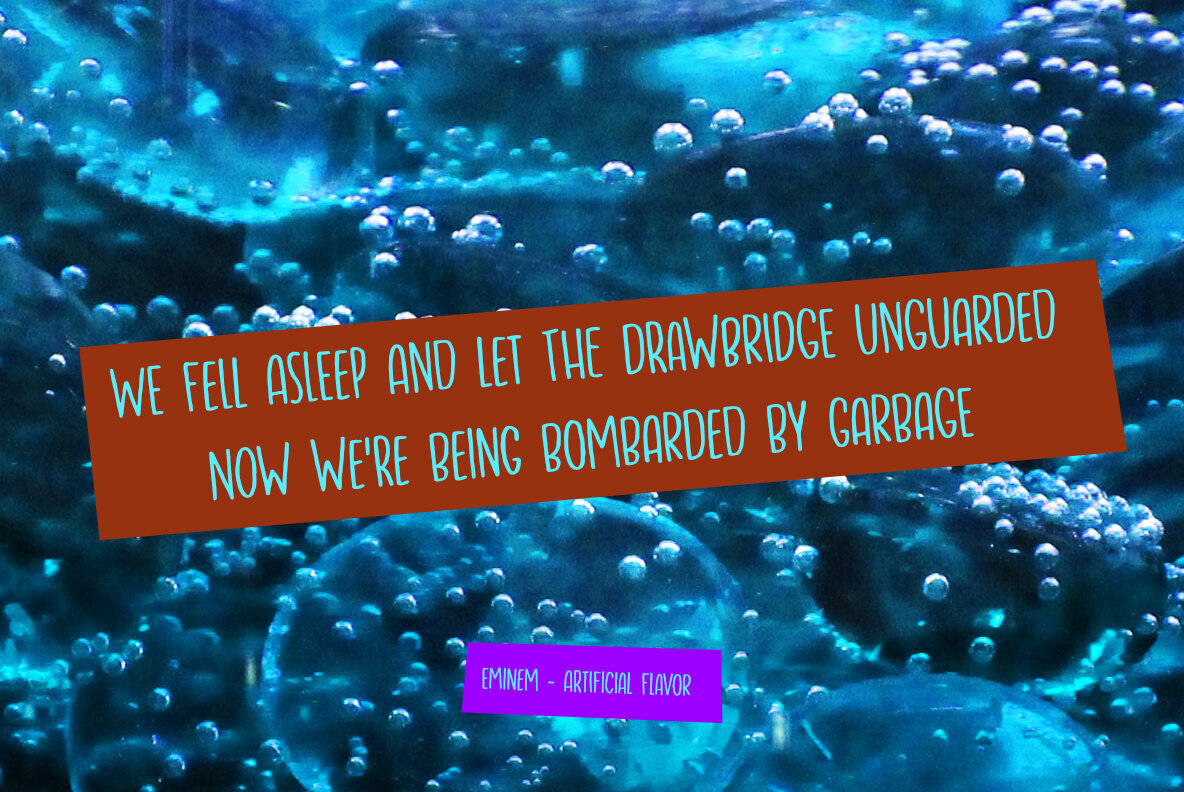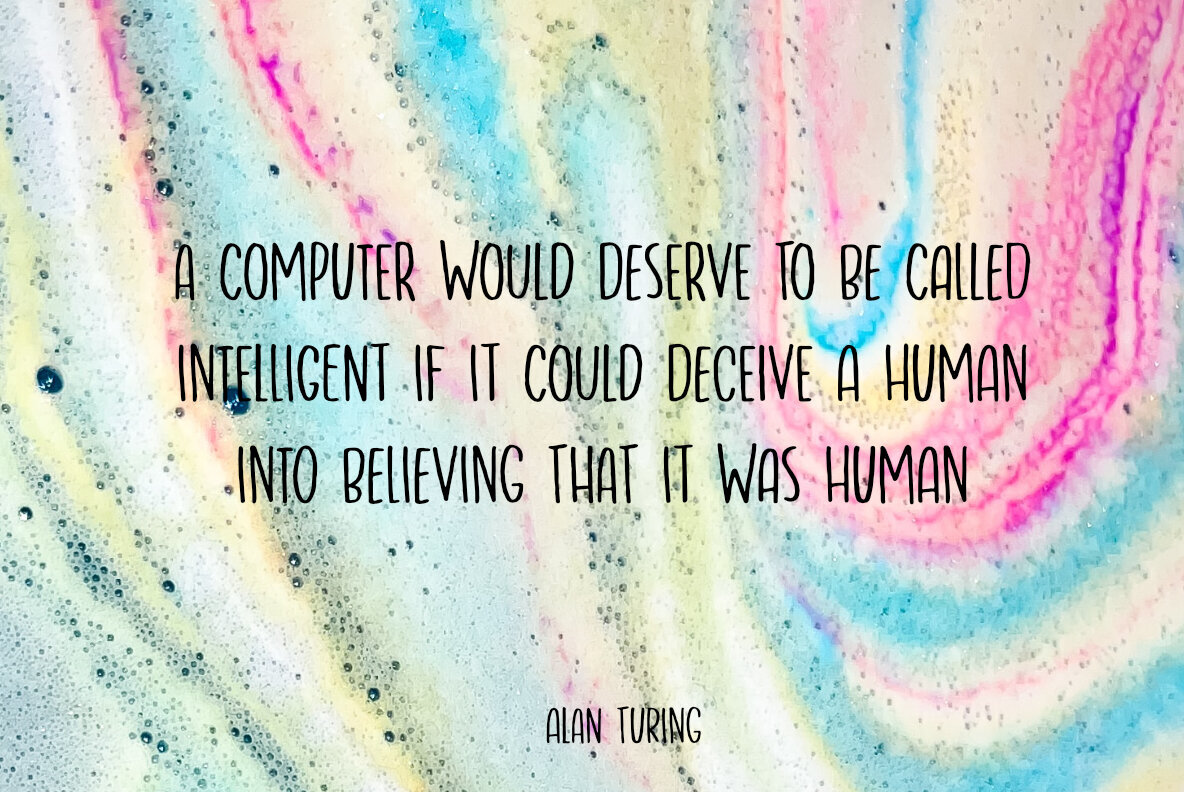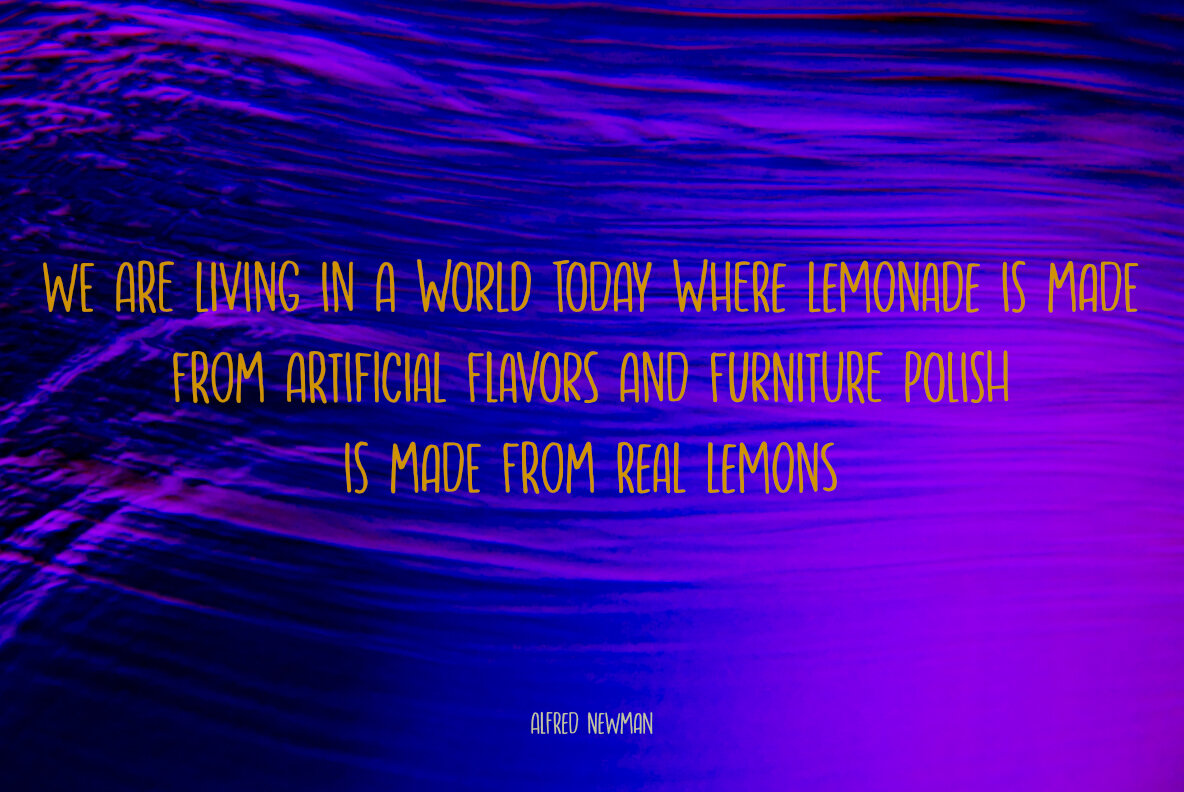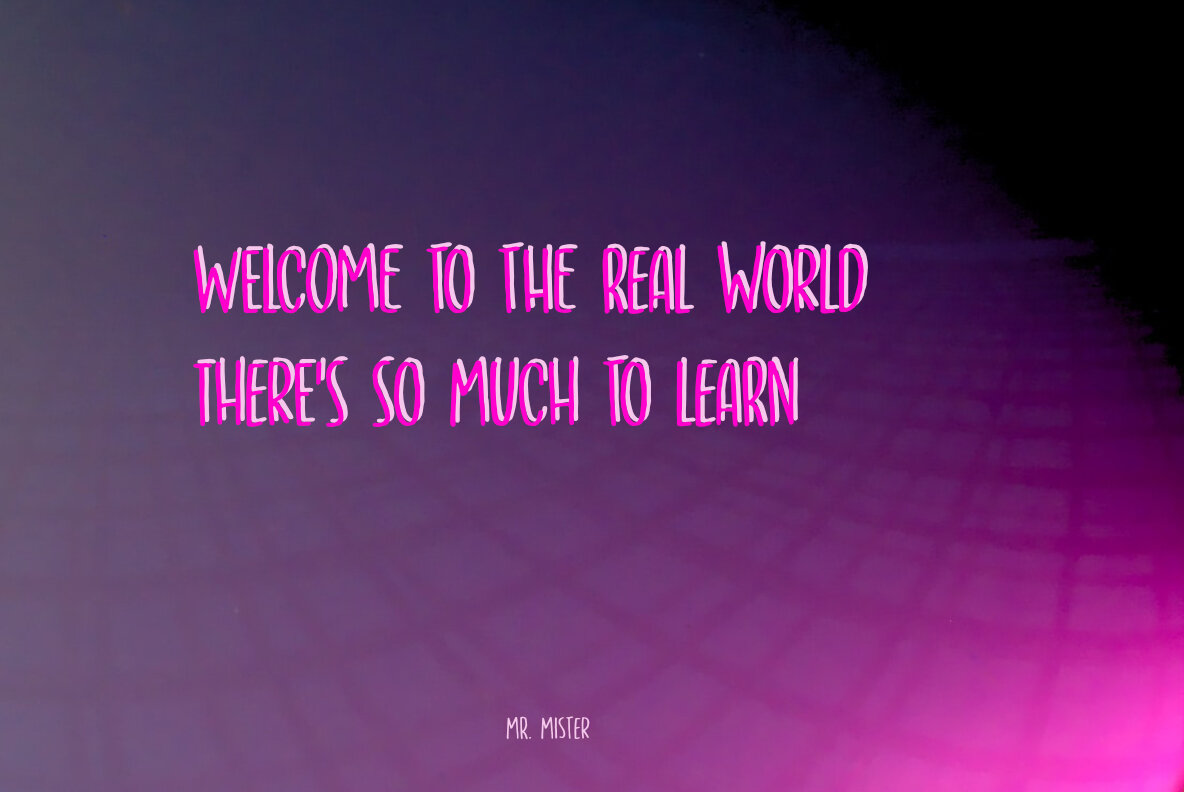
Artificial Flavour Font
I do groceries a couple of times a week. When I am shopping for food, I always read the ingredients list; I don’t want too much sugar, nor palm oil, trans fats or a lot of E numbers. It used to be quite hard finding products that didn’t contain artificial flavours or colouring, but it is getting better. Artificial Flavour is an anti-ode to the time we couldn’t get enough of the stuff - it is a handmade, all caps font which comes with extensive language support and a sweet set of alternates.